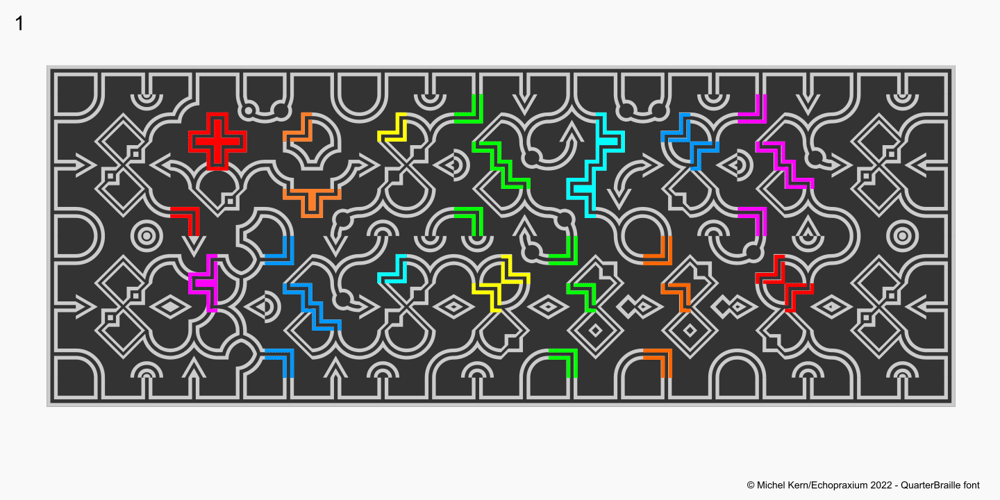
Quarter Braille Font Family was designed by Michel Kern and published by Echopraxium. Quarter Braille contains 1 styles and family package options. PresentationQuarterBraille (Abbreviated as “QB” thereafter) is a decorative, steganographic and lattice font. Its core design concept is that Braille dots are represented as “quarters of a square”[1]. This is illustrated by posters 1 and 2 (NB: these glyph parts will be called “QB dots” thereafter).The other glyph parts (see poster 3) are purely decorative and meaningless in terms of Braille dots encoding[2]. All glyph parts are meant to generate a wide variety of patterns from horizontal and vertical combinations of glyphs.There is also a graphic convention to differentiate uppercase from lowercase letters with the presence or absence of shape subparts (in the “endings”, “quarter of a circle with a ring” and “quarter of a diamond with a small square in the middle”) like shown by poster 4.This font is suitable for very short texts (e.g. logos, acronyms, quotes, ambigrams, pangrams, palindromes, etc…) but on the other hand it may be used for steganographic purpose like geocaching as well as fictive alphabets (e.g. Alien/SciFi/Fantasy/Antique civilizations). Posters 1. Font Logo: the displayed text is ” Quarter ” followed by ” Braille”. There’s a rainbow layer above the text to highlight the “QB dots”, this is achieved by A..Z glyphs with “only QB dots” (codes 230..255) 2. Anatomy of a Glyph (L) and “QB Dots” (quarters of a square) 3. Glyphs Parts: Square and Cross (Inverted square), Circle and Inverted Circle (with or without the small circle in the middle), Diamond (with or without the small square in the middle), Inverted Square and Circle, Shape combos, Ending 4. Uppercase vs Lowercase (tiny shape subparts are shown in red) 5. Sample 1: Bathroom sink with QB tiles on the credence 6. Sample 2: Hands knuckle tatoos: “LOVE/HATE”[4] 7. Sample 3: Poker Hand: pocket Aces. It’s an Ace of Hearts (Ah) on the left and an Ace of Spades (As) on the right. Like in regular cards, the card value (e.g. Ah) is displayed twice: at the top and rotated by 180 degrees at the bottom. This poster also illustrates that QB could be used to print embossed playing cards with tactile and visual display of card values. 8. Sample 4: Pangram: “Adept quick jog over frozen blue whisky mix” 9. Sample 5: Latin Magic Square: “SATOR AREPO TENET OPERA ROTAS” (NB: for compensation of the 2/3 glyph ratio, letters on each line are separated by a space: “S A T O R”, …). 10. Sample 6: Quote of Mahatma Gandhi: “Learn as if you will live forever, live like you will die tomorrow.”. This is also a demonstration of border glyphs combinations. 11. Sample 7: Steganography use case: the text is a sequence of 64 aminoacids (1 Letter notation), this protein was described in a research paper “The complete Aminoacid sequence of an amyloid fibril protein AA of unusual size (64 residues) 1975”. 12. Sample 8: Border Glyphs with the provided styles and mixed styles. The words are the same than in poster 9 (“SATOR AREPO TENET OPERA ROTAS”). Despite the 2/3 glyph ratio, the “TENET cross” was achieved by both inserting spaces in horizontally (“T ENE T”) and by using the “thin borders glyphs”.Notesa. Border glyphs[3] are meant to enhance the esthetics of text samples displayed with QBb. Special characters (e.g. *$()[].,;:&@# …) are provided and follow the NABCC (North American Braille Computer Code) convention.c. A..Z Glyphs with only the “QB dots” are provided as demonstrated by posters 1 and 2 (A/N: this was very useful to create them).d. Glyph Map: 32..64: Special characters – 161..187: “Thin variant” of Border glyphs, 192..229: Border glyphs, 230..255: A..Z with only the “QB dots” – Codes 176 an 181 are “regular SPACE” (empty glyph).Footnotes1. There is indeed two shapes which represent the braille dot: the “quarter of a square” and the “quarter of a cross”. It’s because a cross may be considered as an “inverted square” because the square corners are merged in the center.2. That’s why the SPACE glyph is only made of decorative/meaningless glyph parts (i.e. no “QB dots”).3. For other fonts with border glyphs, please take a look at my other “decorative Braille fonts” (GoBraille, HexBraille, KernigBraille, StackBraille, MaBraille, DiamondBraille, LorraineBraille).4. LOVE/HATE knuckle tatoos are inspired by the anthology scene from “The Night of the Hunter” movie (Charles Laughton 1955), it also appearead in “Do The Right Thing” movie (Spike Lee 1989).DisclaimerThis font is not appropriate and not meant to print text documents in Braille for the blind readers audience.